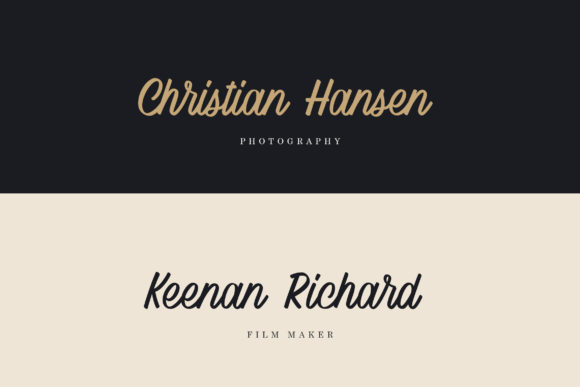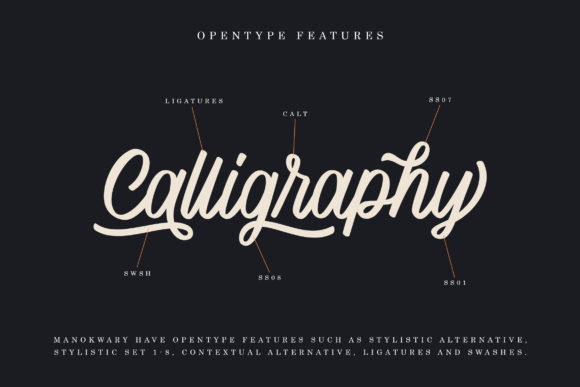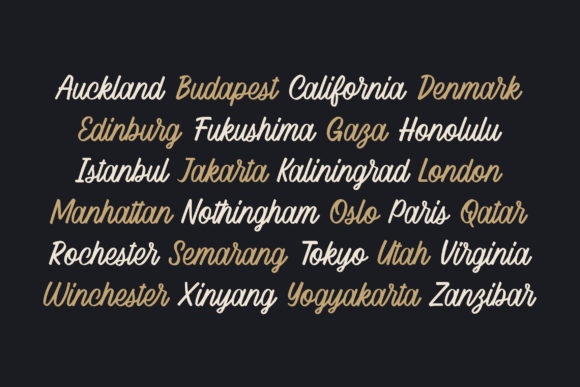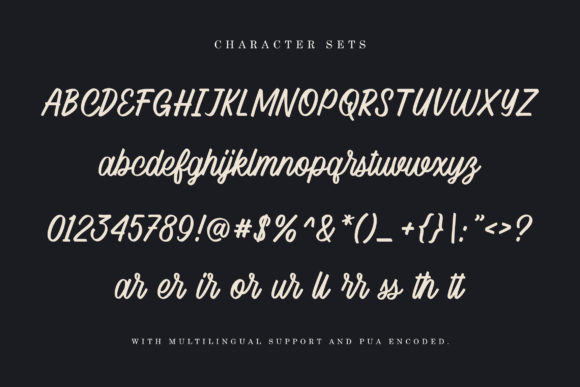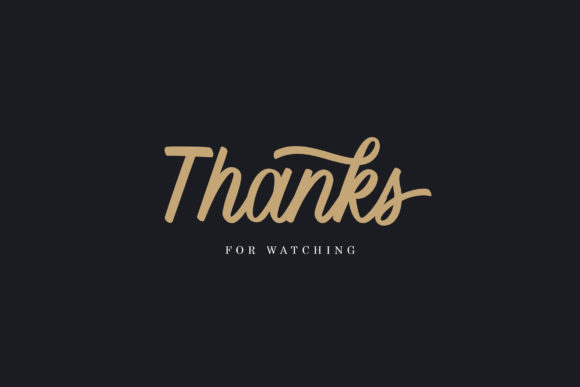
Introduction to Manokwary Font
Manokwary feels equally charming and elegant.
It looks stunning on wedding invitations, thank you cards, quotes, greeting cards, logos, business cards and every other design which needs a handwritten touch This font is PUA encoded which means you can access all of the glyphs and swashes with ease.
Key Features of Manokwary Font